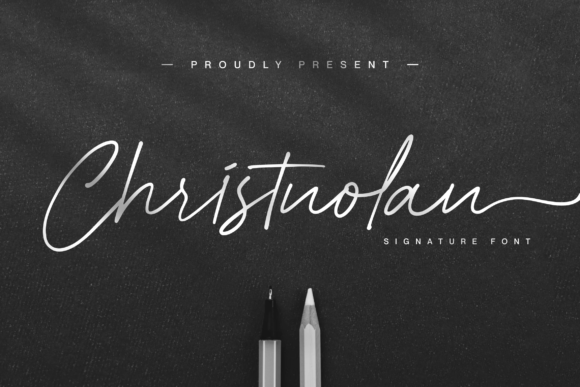
**Immerse Yourself in the Allure of Christnolan: The Quintessential Script Font for Letter Writing**
Prepare to be captivated by Christnolan, the epitome of sophistication and grace in the realm of script fonts. Its meticulously crafted curves and elegant flourishes evoke a bygone era of exquisite penmanship, transforming every written word into a captivating masterpiece.
Indulge in the unparalleled charm of Christnolan's stylistic alternates and ligatures, a treasure trove of creative possibilities that will ignite your imagination. With each stroke of your digital pen, experience the effortless flow of this font, as if guided by an invisible hand of artistic inspiration.
Unleash your inner scribe and elevate your letter writing to new heights of elegance. Christnolan's enchanting presence will enchant your recipients, leaving a lasting impression that transcends the boundaries of mere communication. Its refined strokes will add a touch of timeless charm to your invitations, personal notes, and any written correspondence that seeks to convey a sense of grace and sophistication.
Beyond its undeniable beauty, Christnolan's versatility extends to a myriad of creative endeavors. Adorn your social media posts, website designs, and marketing materials with its enchanting presence, and watch as your creations blossom into works of art that captivate and inspire.
Embracing Christnolan is not merely acquiring a font; it is an investment in the art of written expression. Its PUA encoding grants you effortless access to a world of glyphs and swashes, empowering you to unleash your creativity without bounds.